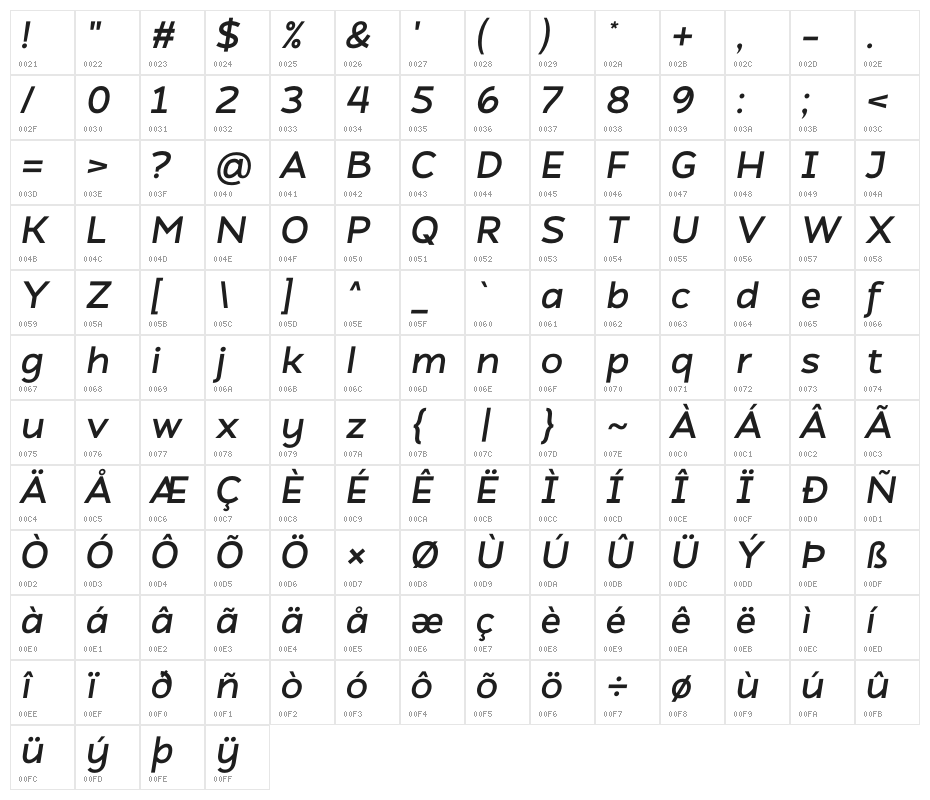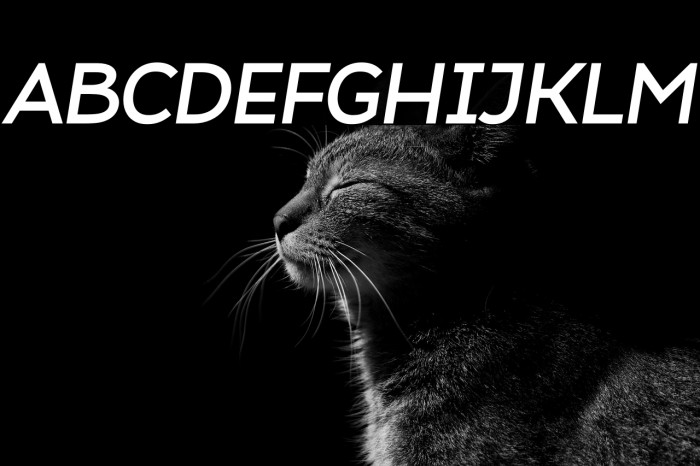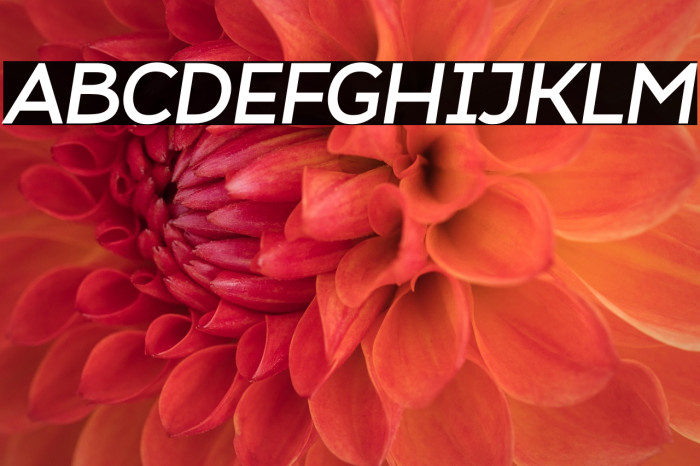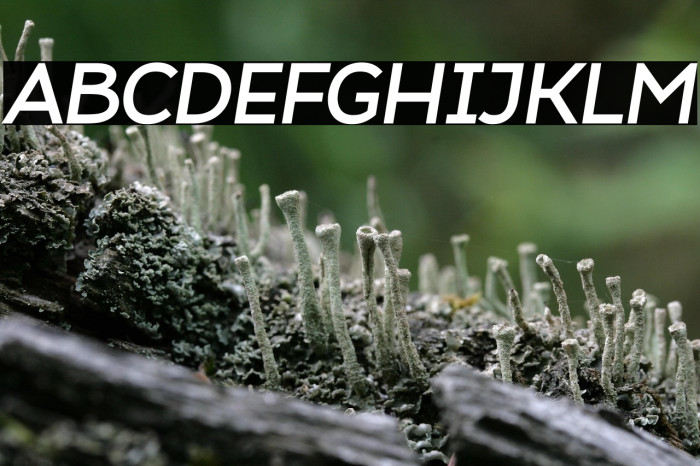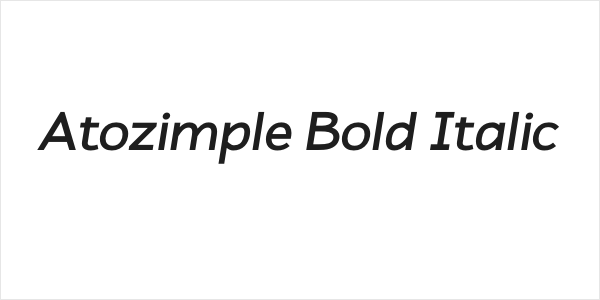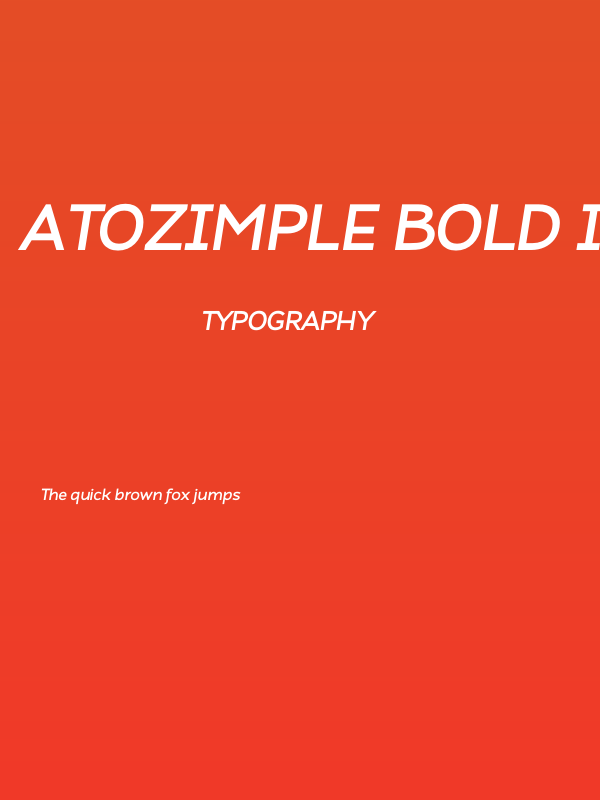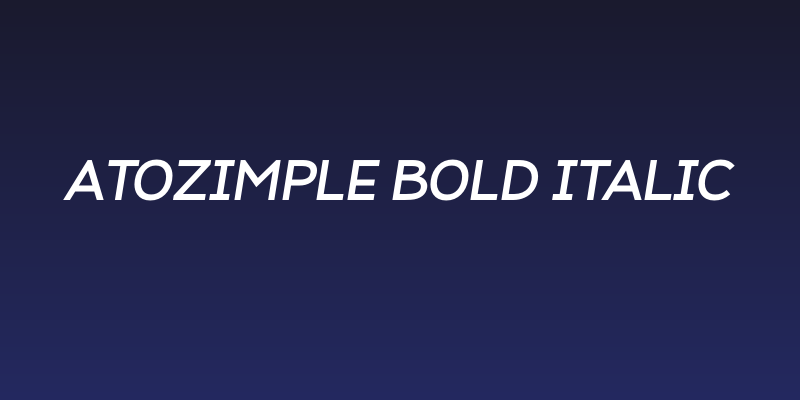
Atozimple Bold Italic Font
Atozimple Bold Italic Description
This typeface features a bold and italic style, characterized by its clean and modern appearance. The letters are slightly slanted, adding a dynamic and forward-moving feel. The strokes are consistent and bold, providing a strong presence on the page. The uppercase and lowercase letters are well-proportioned, with a smooth transition between thick and thin strokes, giving the font a balanced and harmonious look. The numerals and special characters maintain the same boldness and slant, ensuring uniformity across all characters. This font is versatile, suitable for both digital and print media, and can effectively convey a sense of modernity and professionalism.